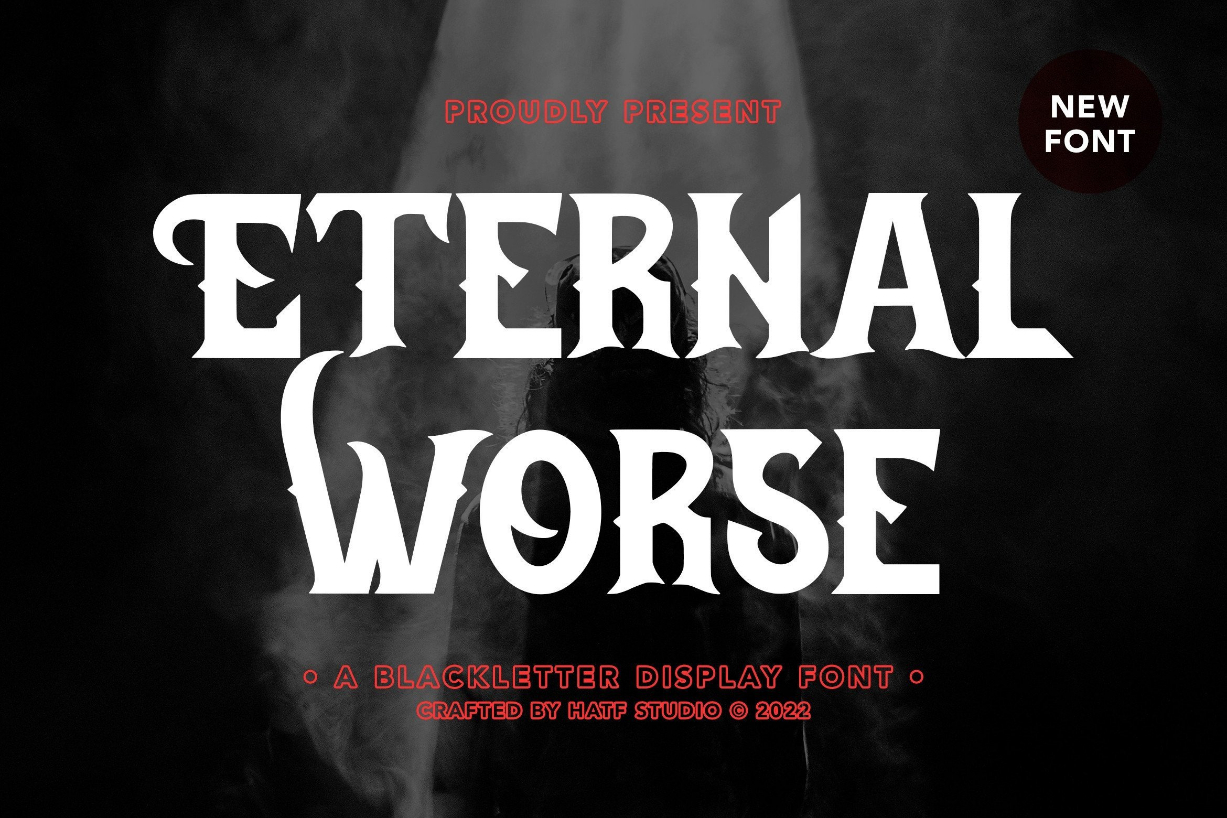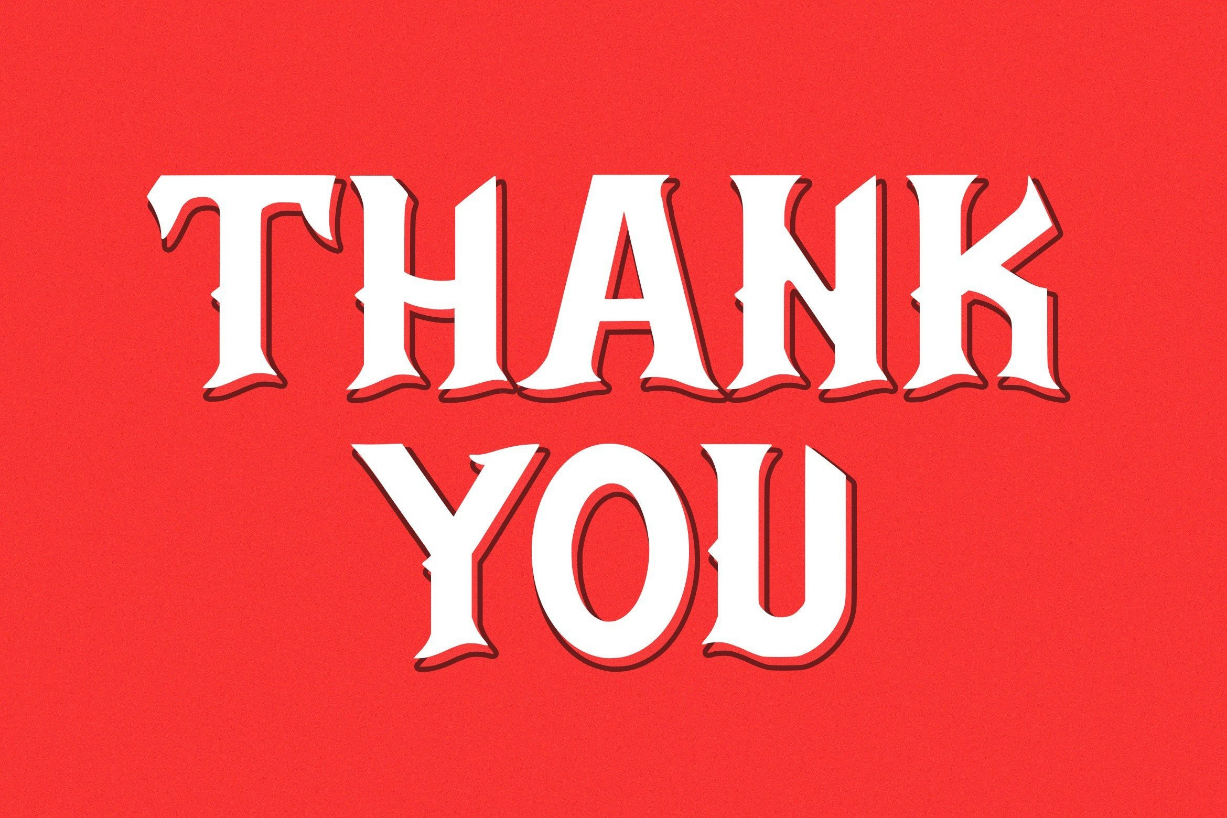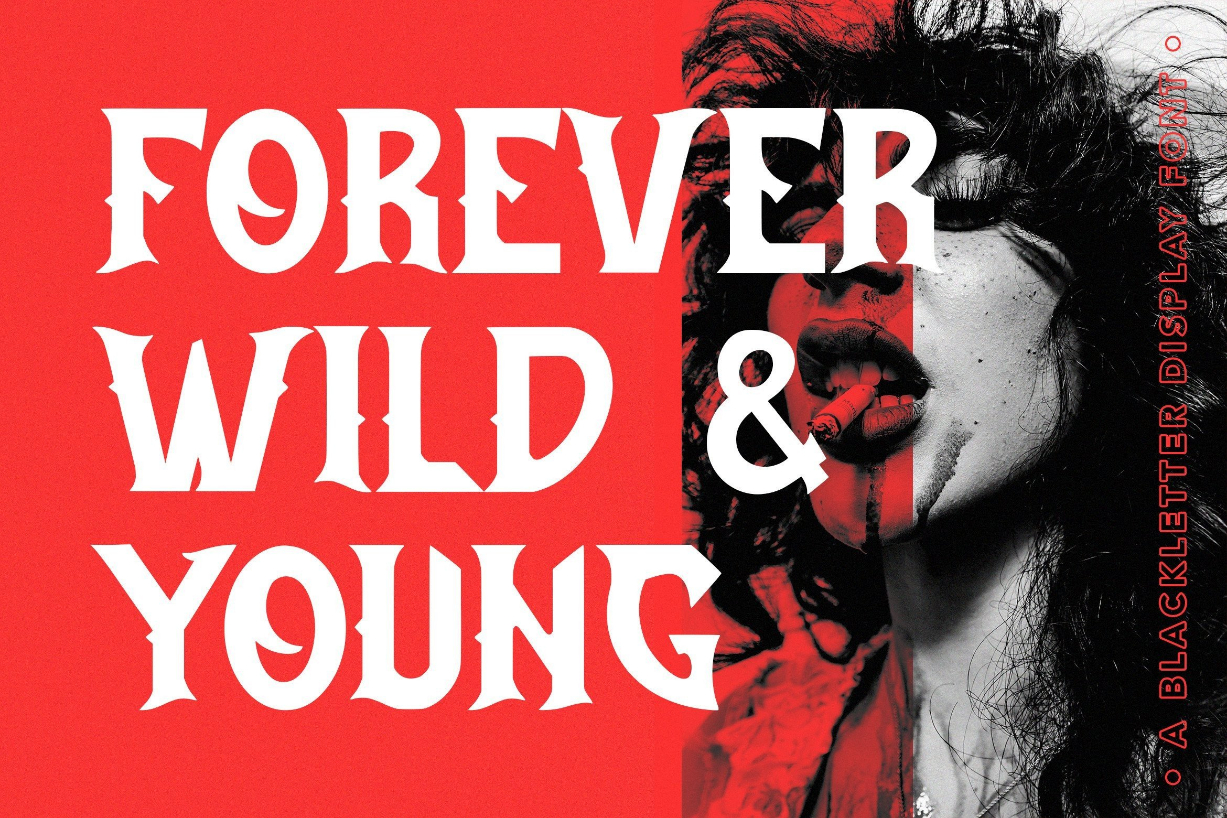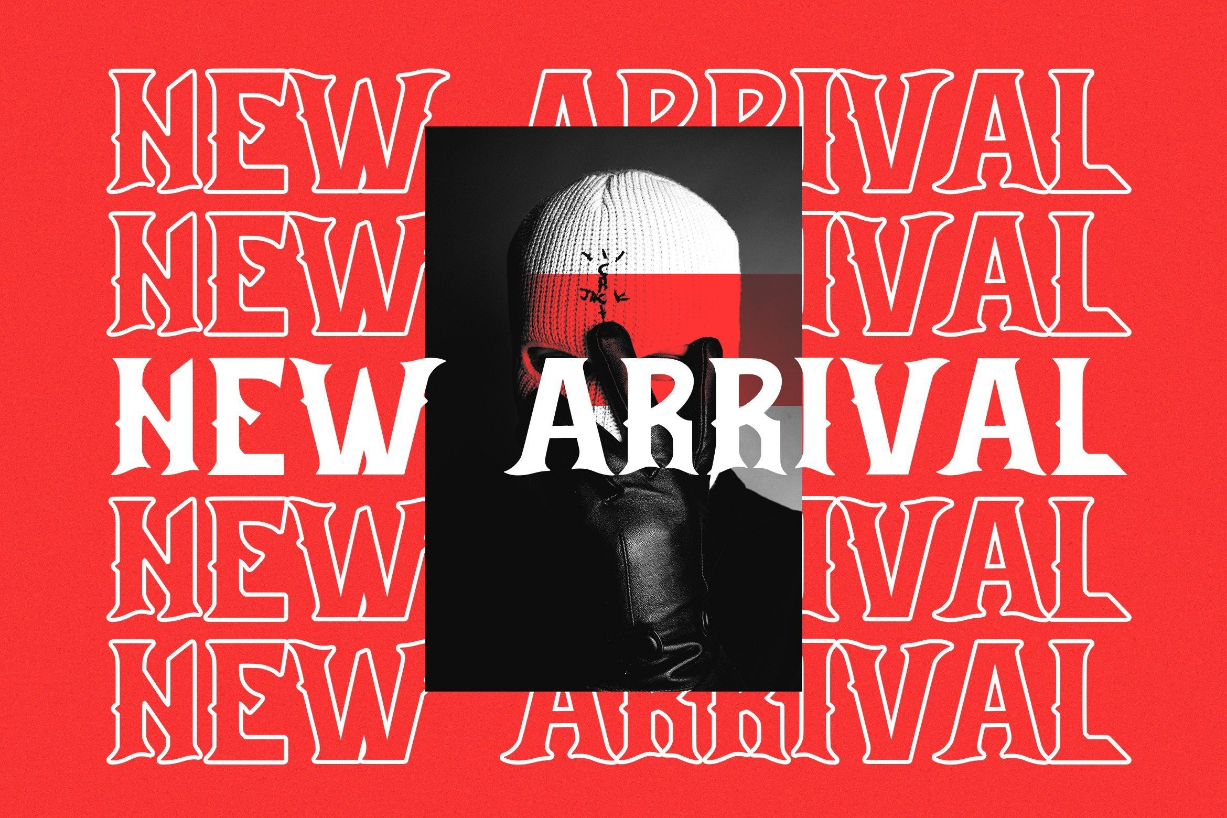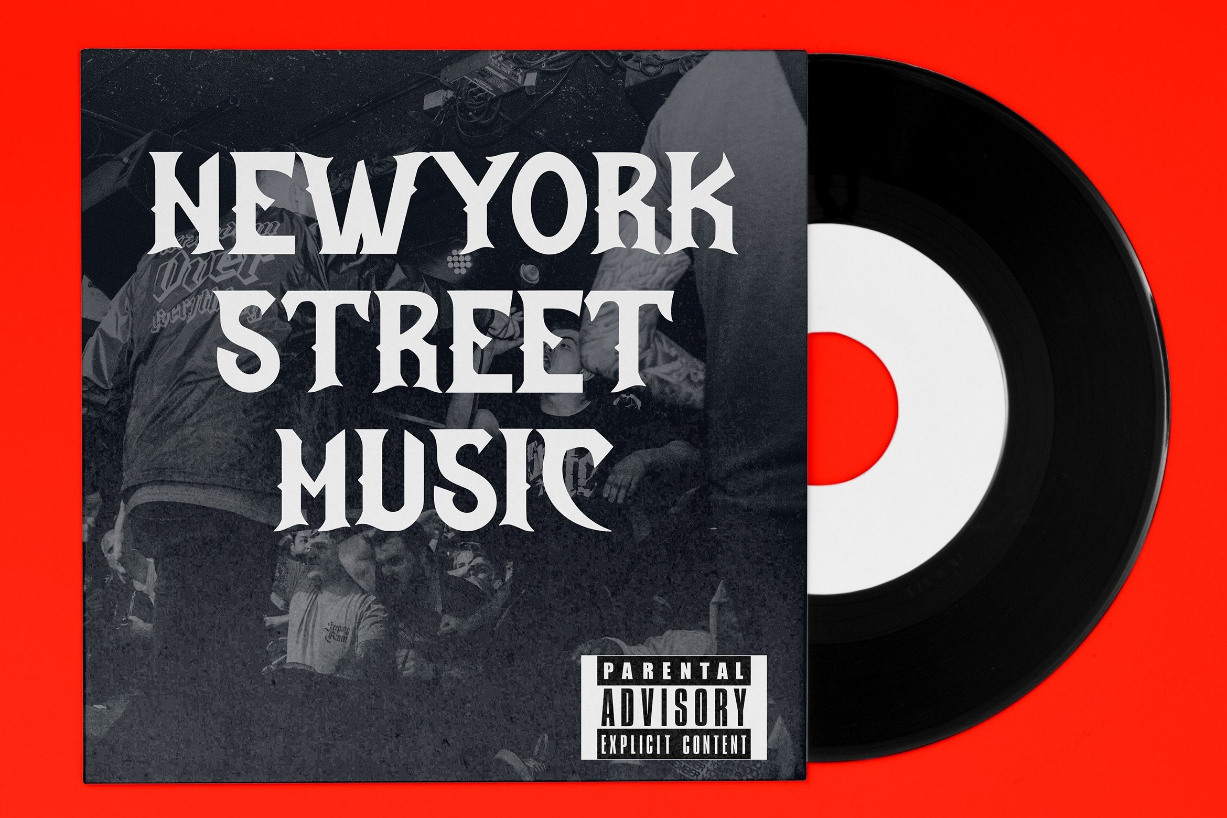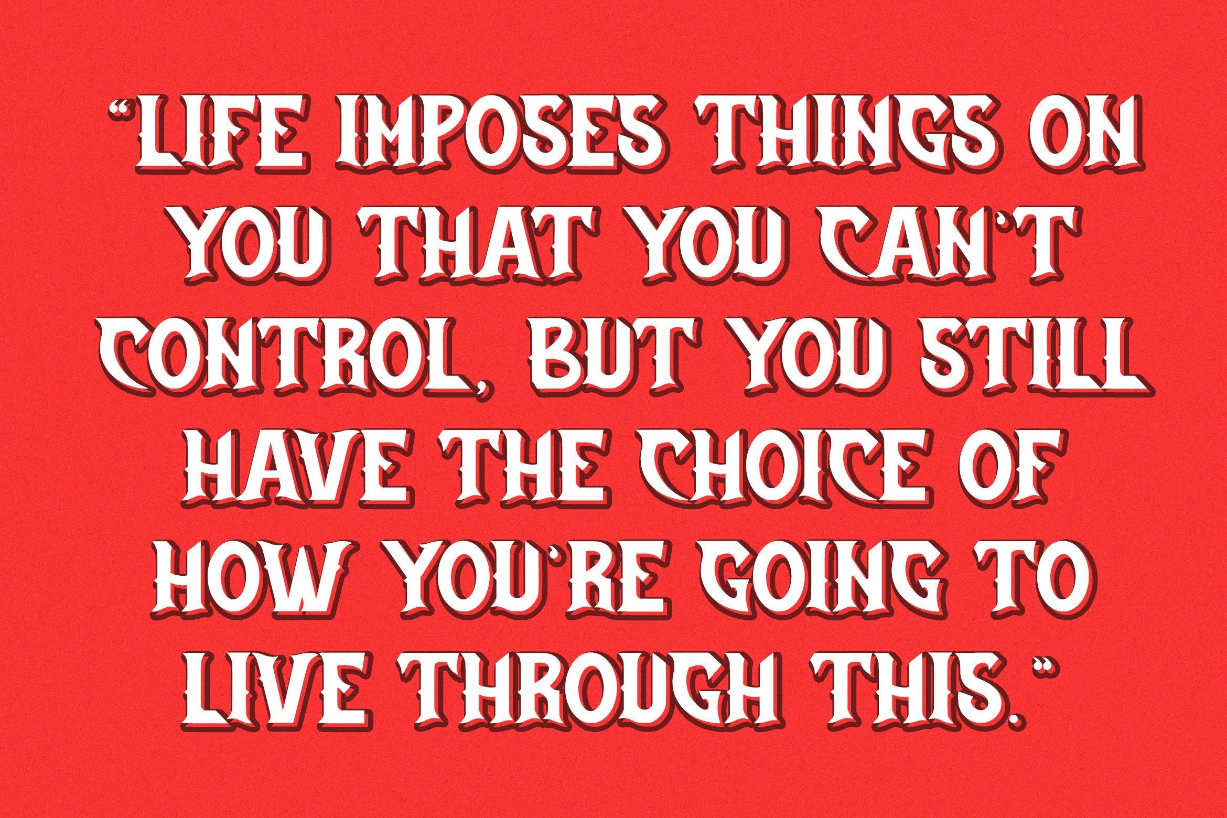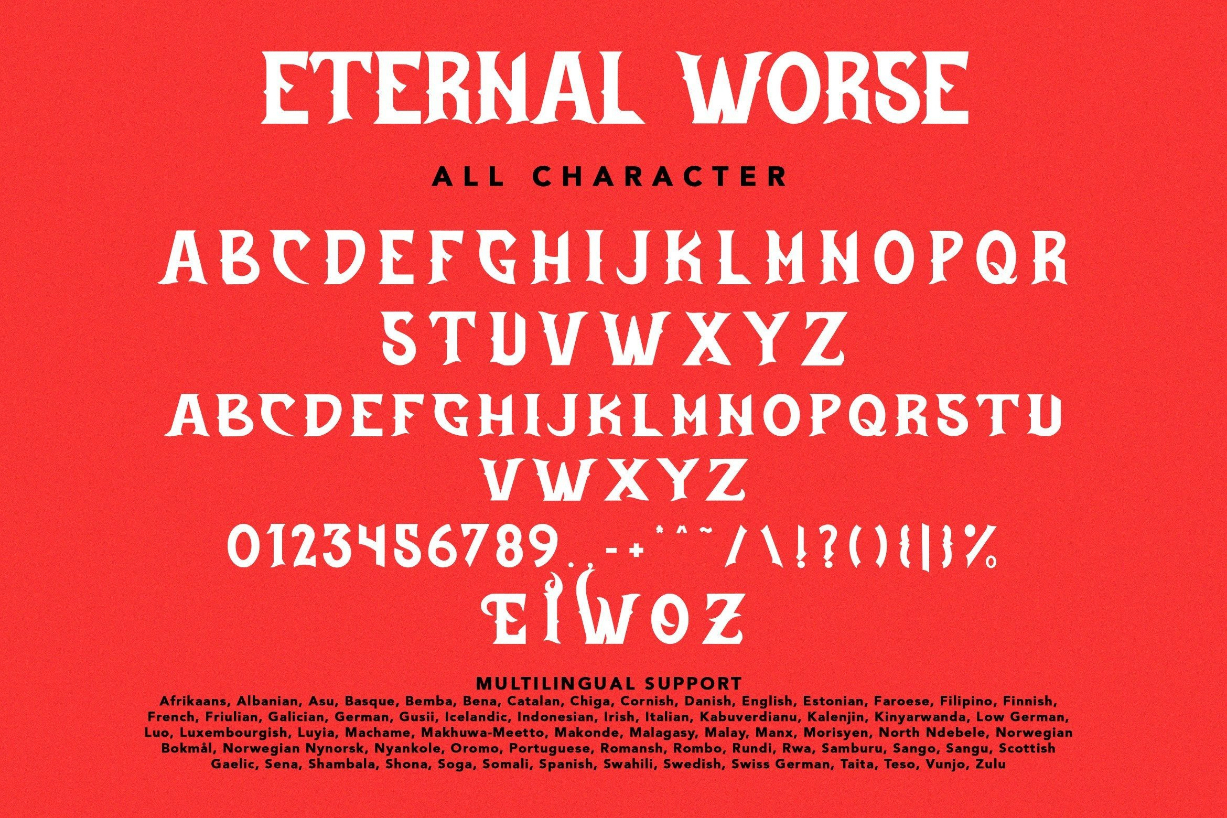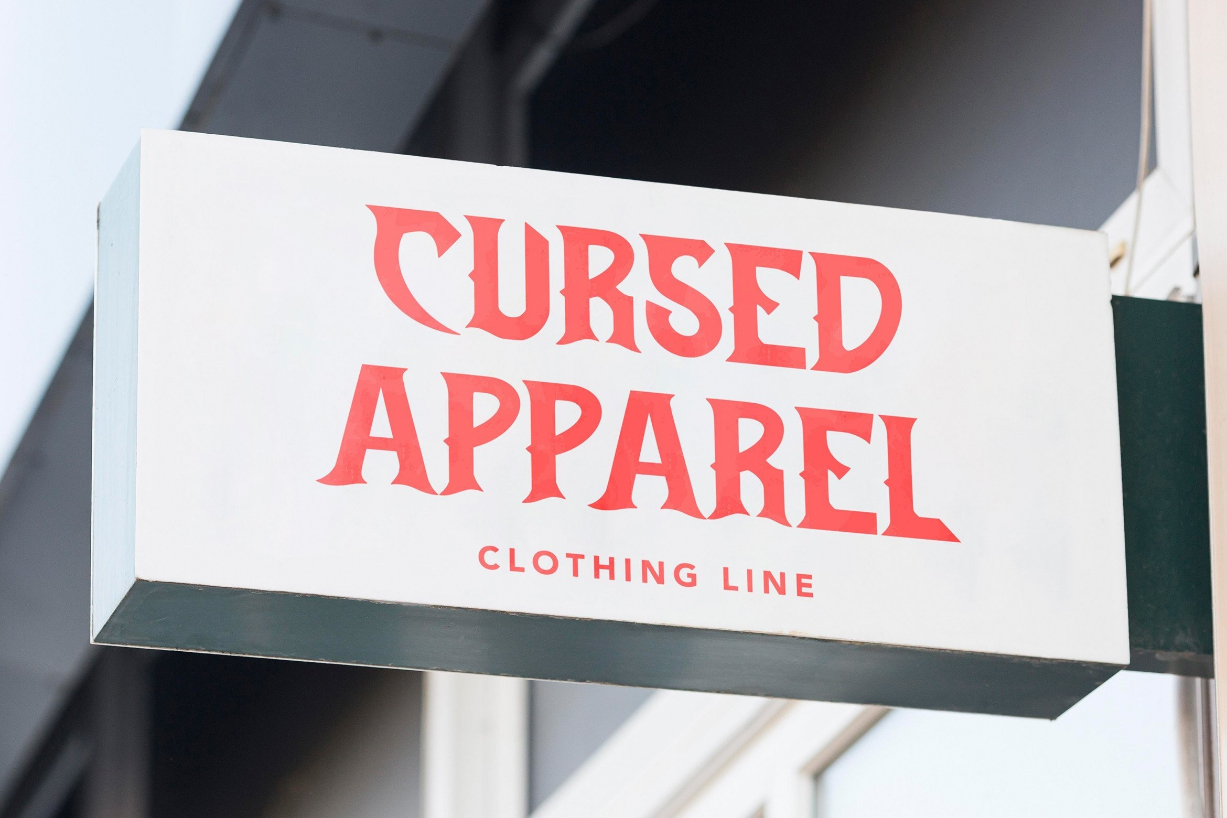
Eternal Worse Font
About Eternal Worse Font
Eternal Worse is a blackletter display font inspired by gothic and horror styles, perfect for logotypes, posters, badges, book covers, T-shirt design, packaging, and many more. Add it to your creative projects, and make them outstanding!